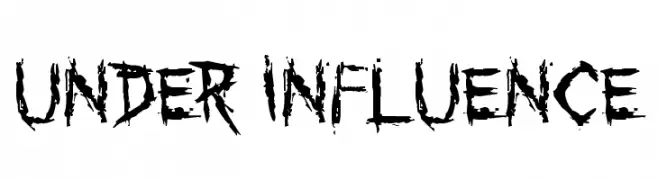
A bold, playful handwritten font with a casual and dynamic style.
A whimsical, cursive font with a calligraphic style and dynamic strokes.
A bold, chaotic font with a rough, hand-drawn appearance.
A playful, handwritten font with uneven strokes and a casual style.
A decorative, distressed font with a chaotic, hand-drawn style.
A bold, graffiti-inspired font with sharp, angular lines and dynamic curves.
A bold, graffiti-inspired font with an urban, edgy style.
Science fiction-themed pictogram and icon set with technical illustrations.
A cryptic, distressed font with angular shapes and dot accents.
Decorative font with space-themed elements.
A decorative dingbat font with nautical and pirate-themed illustrations.
A display font composed of zeppelin and airship illustrations for each character.
A decorative set of intricate and artistic symbols with a vintage, mystical style.
A bold, decorative dingbat font with illustrated character icons.
Cartoonish, hand-drawn font with each character as a unique animal or figure.